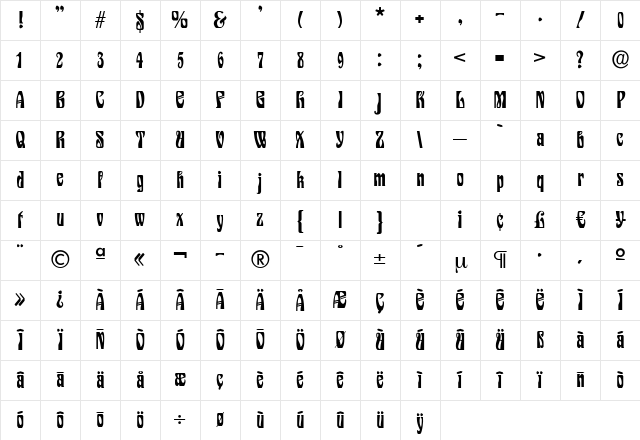
NancyBecker Regular
Design Context for NancyBecker
NancyBecker is a composed and adaptable typeface that performs quietly and consistently across a wide range of design contexts.
Pro Tip: Use NancyBecker in both headline and body roles to test its range before committing to a single application.